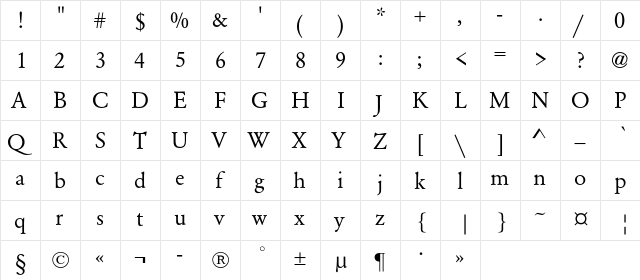
AZGaramondC Regular
Design Context for AZGaramondC Typeface
AZGaramondC is a composed and adaptable typeface that performs quietly and consistently across a wide range of design contexts.